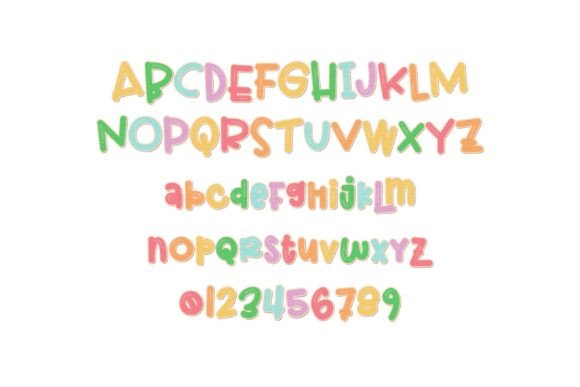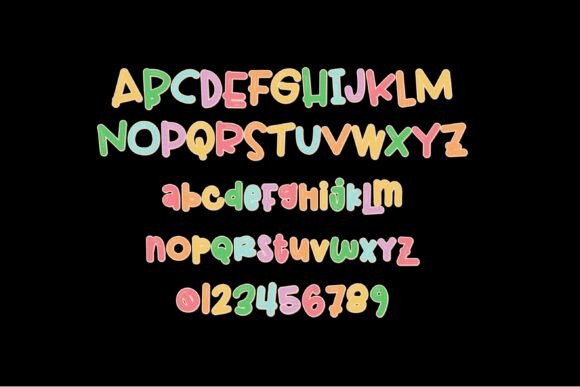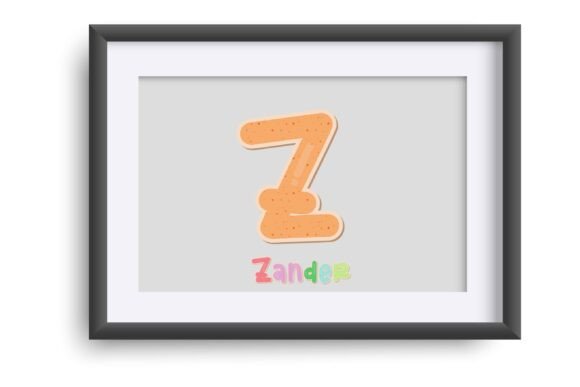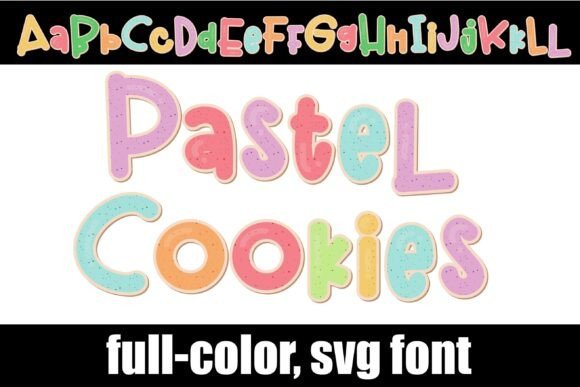
Introduction to Pastel Cookies Font
Satisfy your craving for playful design with Pastel Cookies, a deliciously charming full-color SVG font that looks fresh out of the bakery.
This display typeface turns every headline into a sweet treat, featuring thick, rounded letterforms textured to look like soft, freshly baked sugar cookies Each character is frosted with a smooth layer of colorful royal icing in a delightful palette of lavender, mint, pink, and yellow, then topped with a generous dusting of tiny, shimmering nonpareil sprinkles.